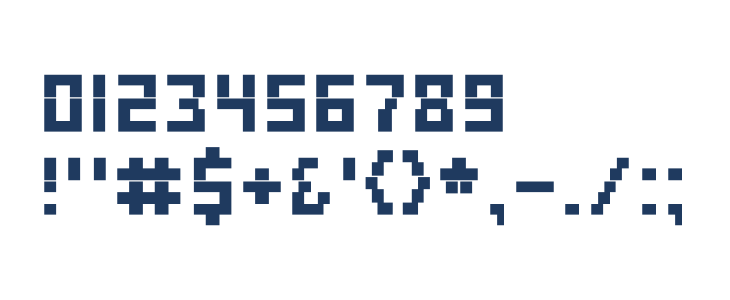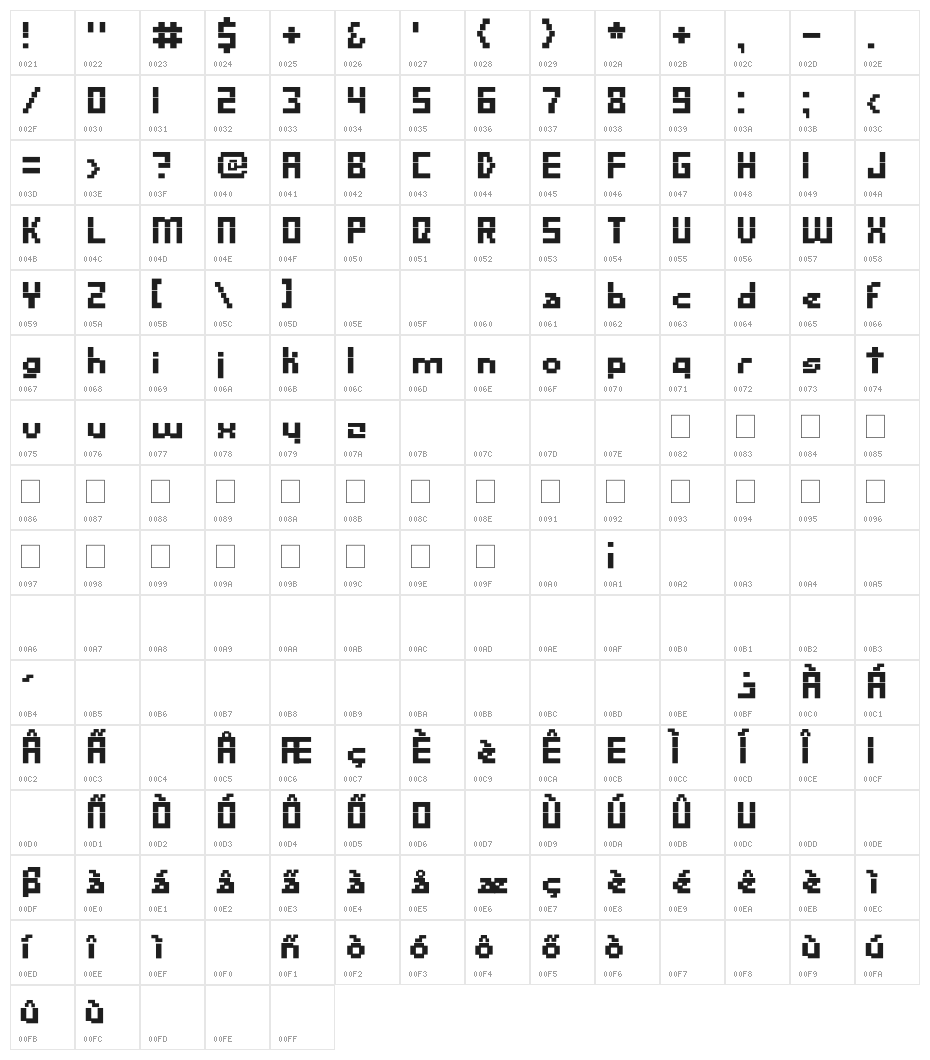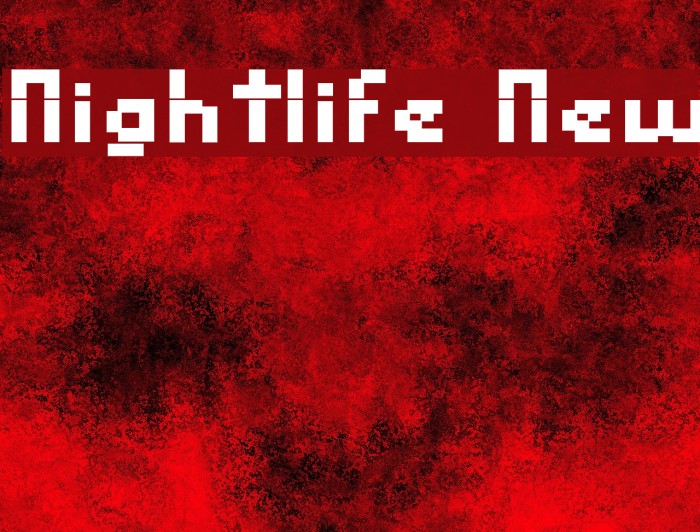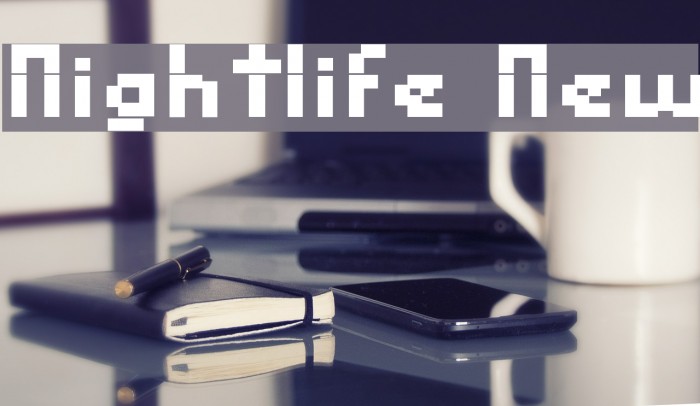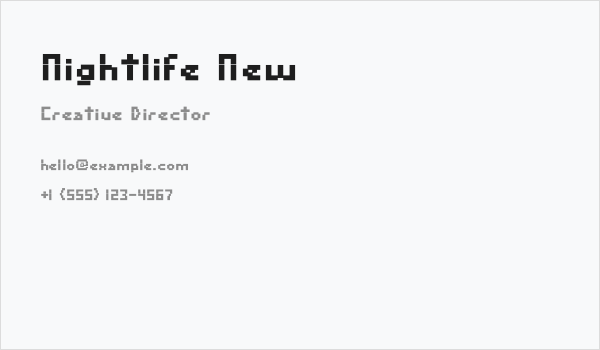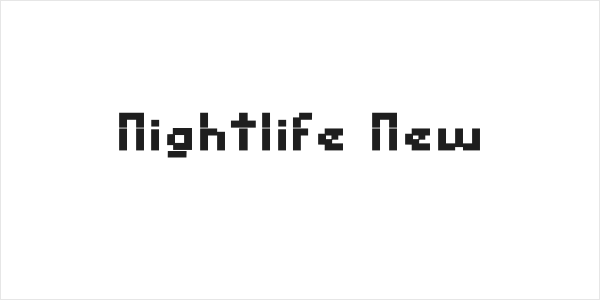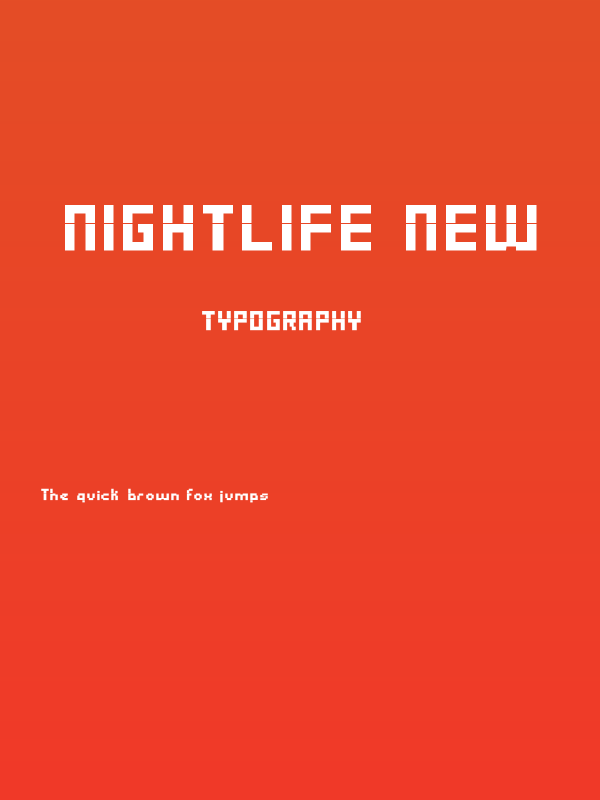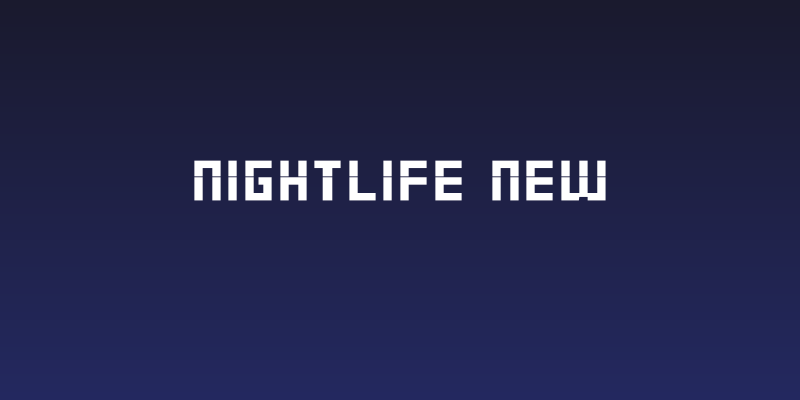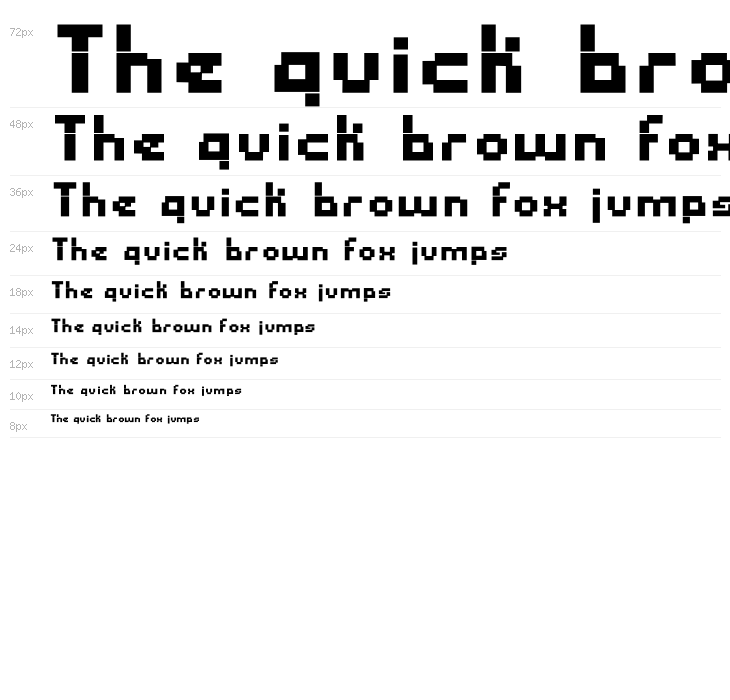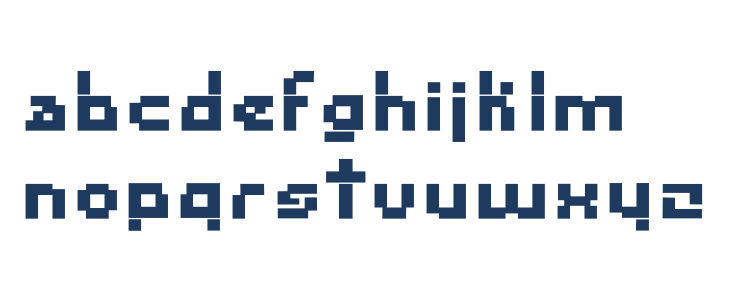
Nightlife New Font
Nightlife New Description
This font features a bold, geometric design with a pixelated aesthetic reminiscent of retro digital displays. The characters are constructed with sharp, angular edges and a consistent block-like structure, giving it a distinct, futuristic appearance. The uppercase and lowercase letters maintain a uniform height, enhancing its digital feel. Numbers and special characters follow the same pixelated style, ensuring visual consistency across all elements. The font's unique style makes it ideal for projects that require a modern, tech-inspired look.
| Proposed Projects | Ideal for video game graphics, tech-themed posters, digital art, and retro-style branding. |